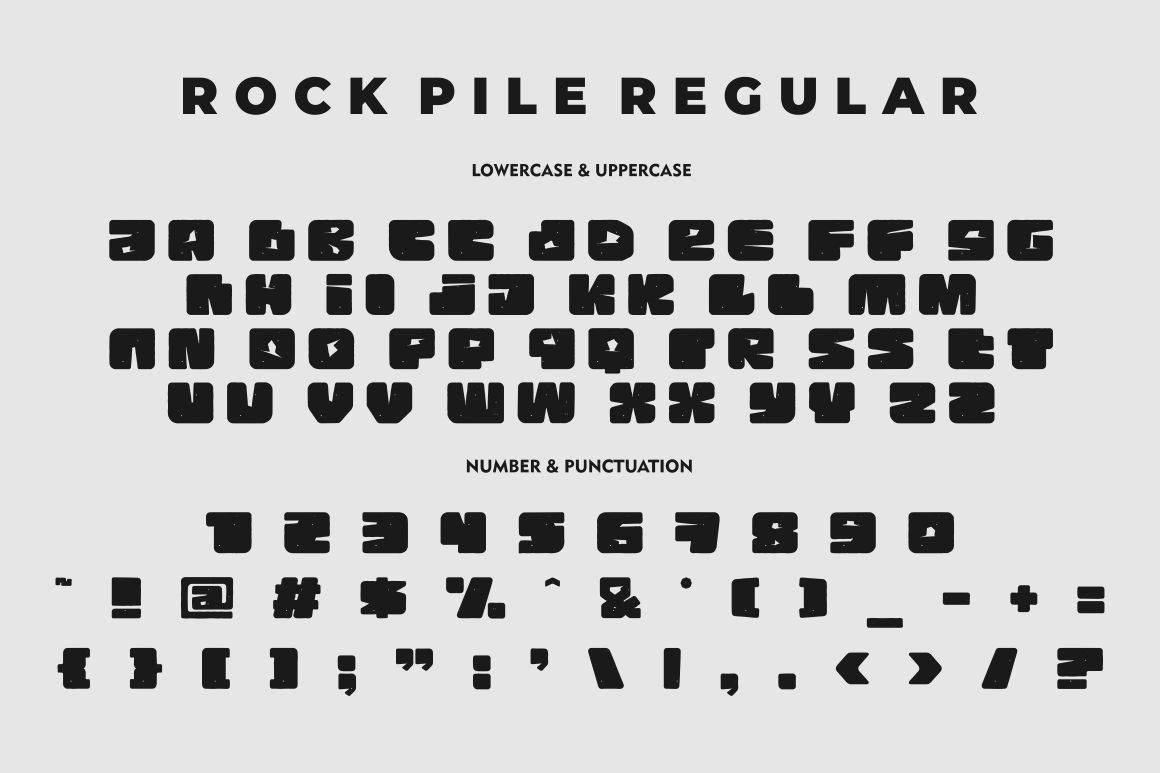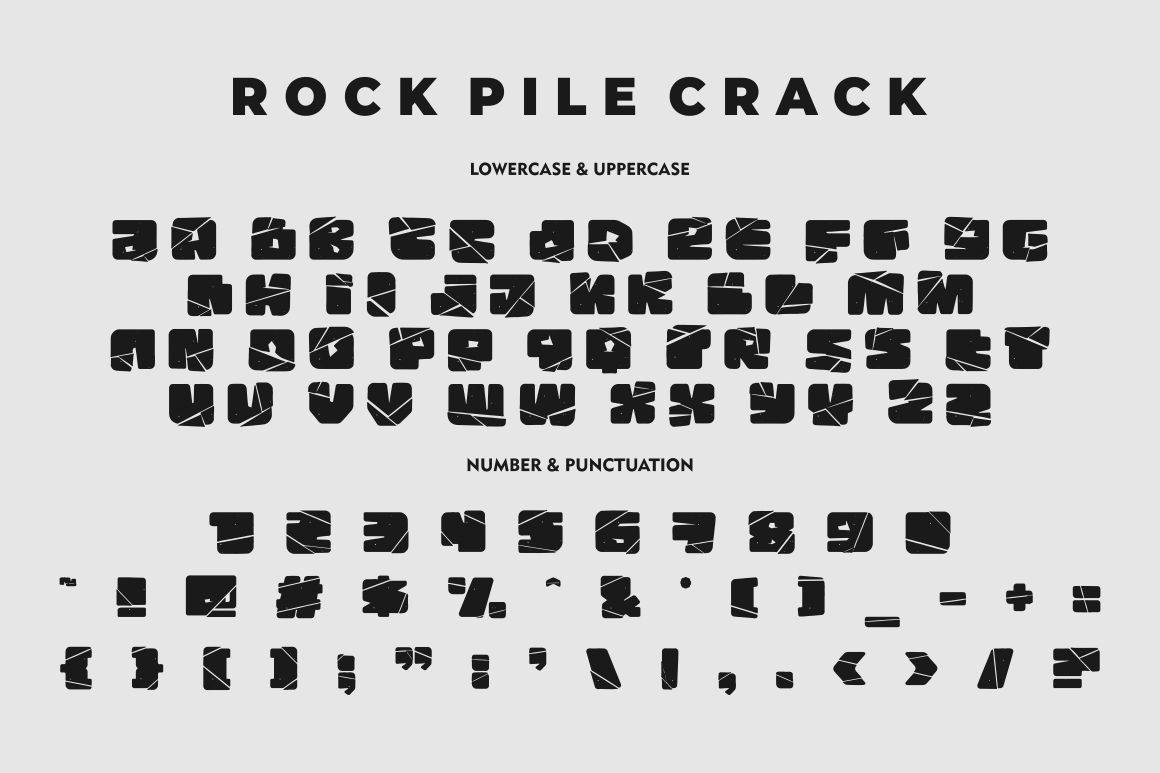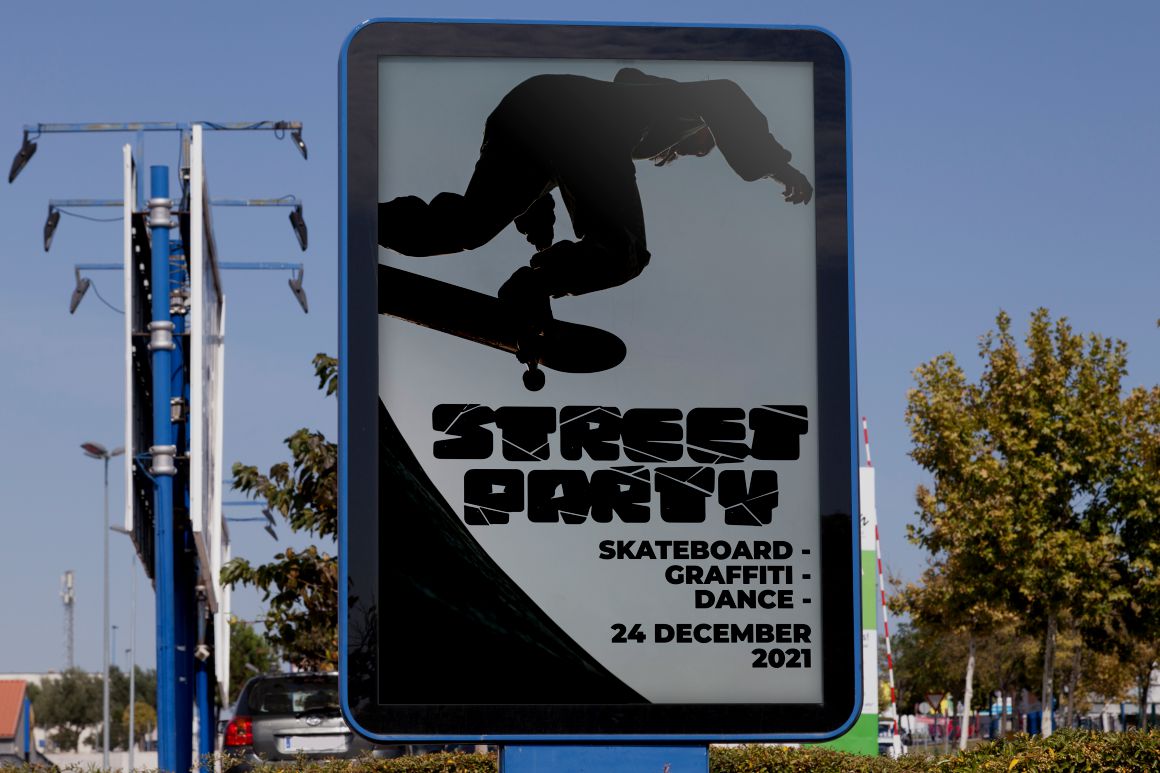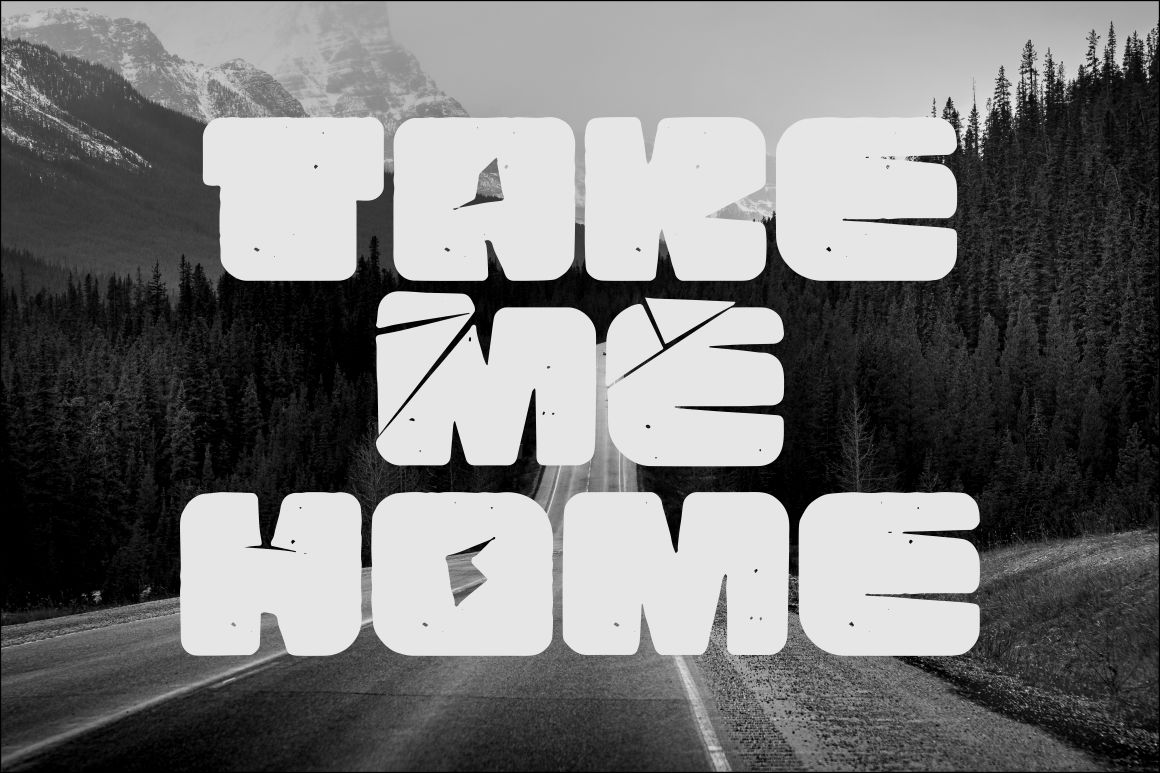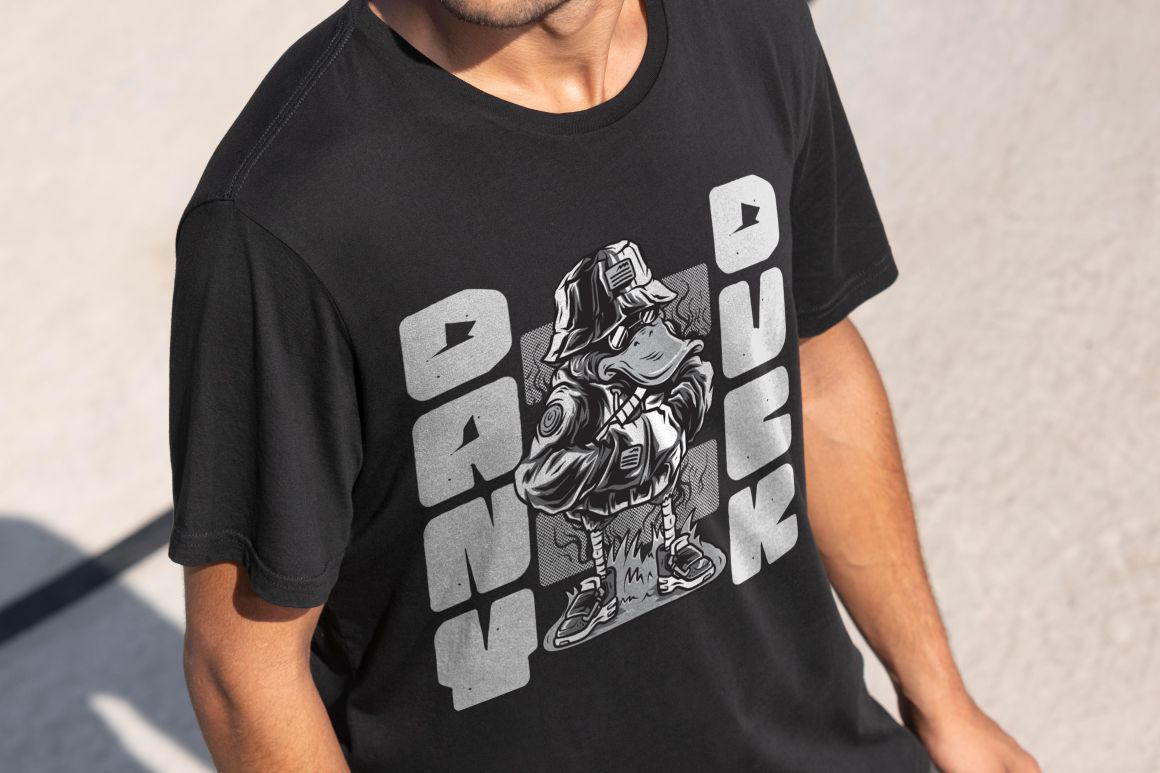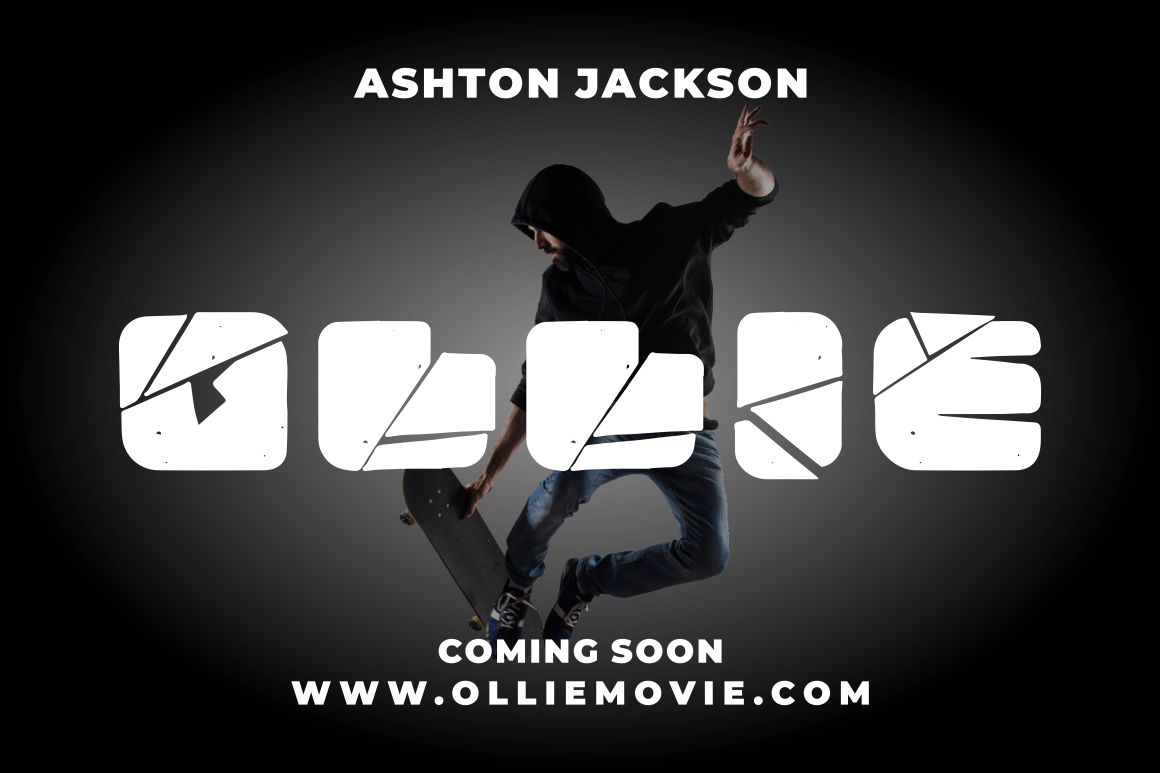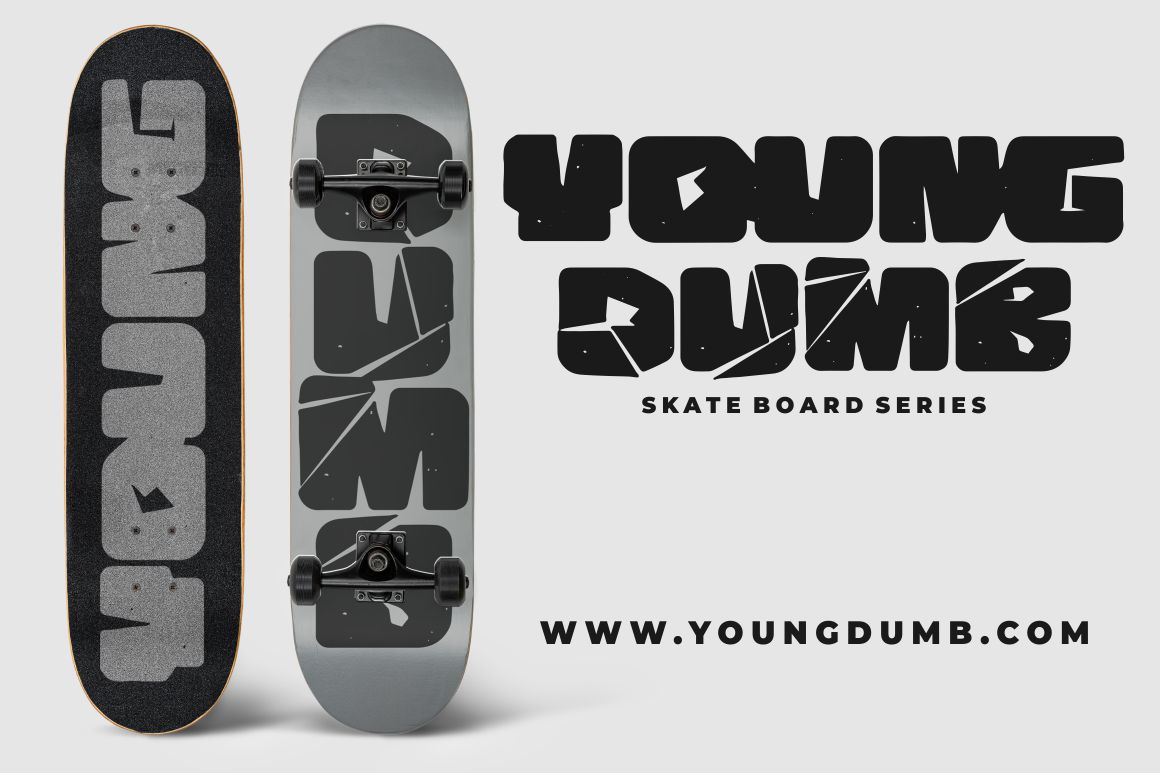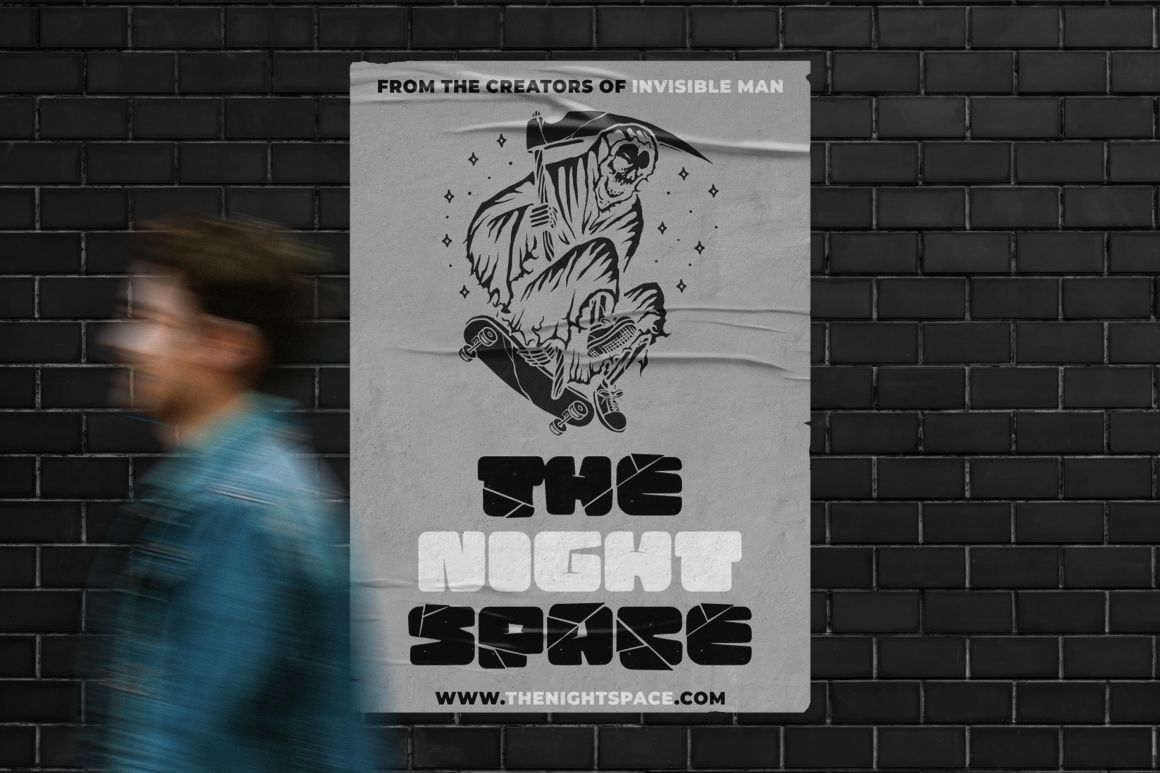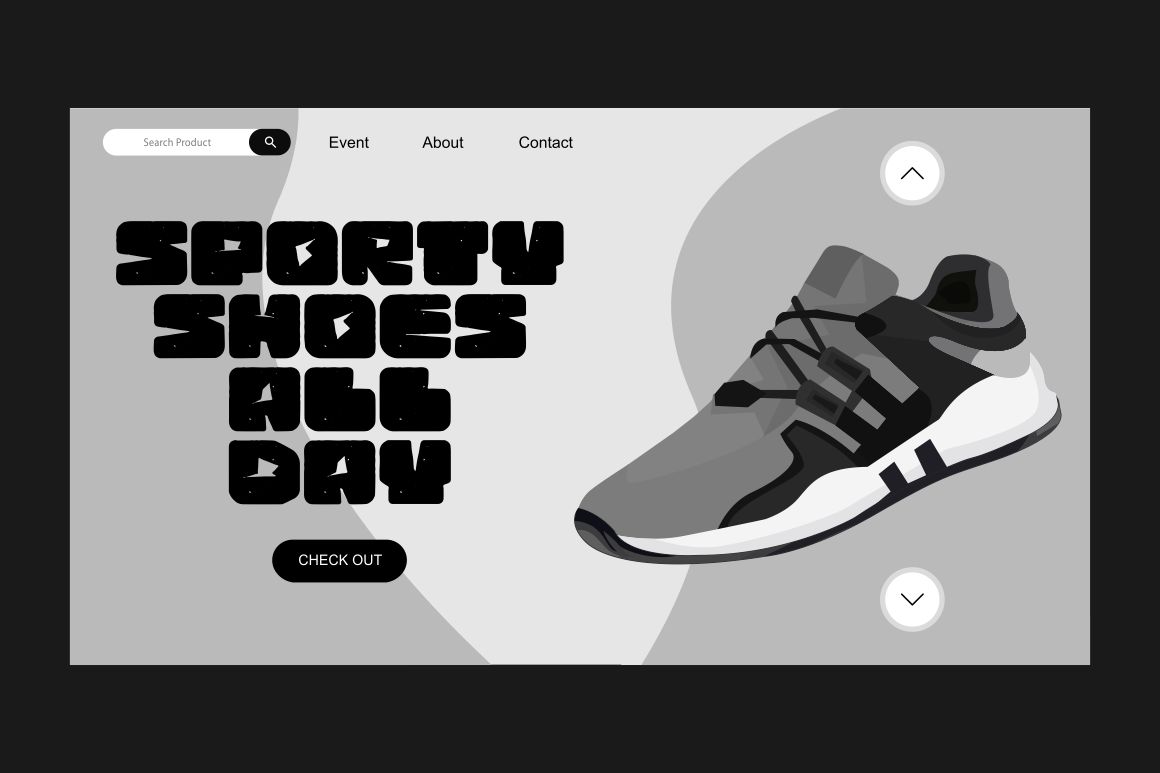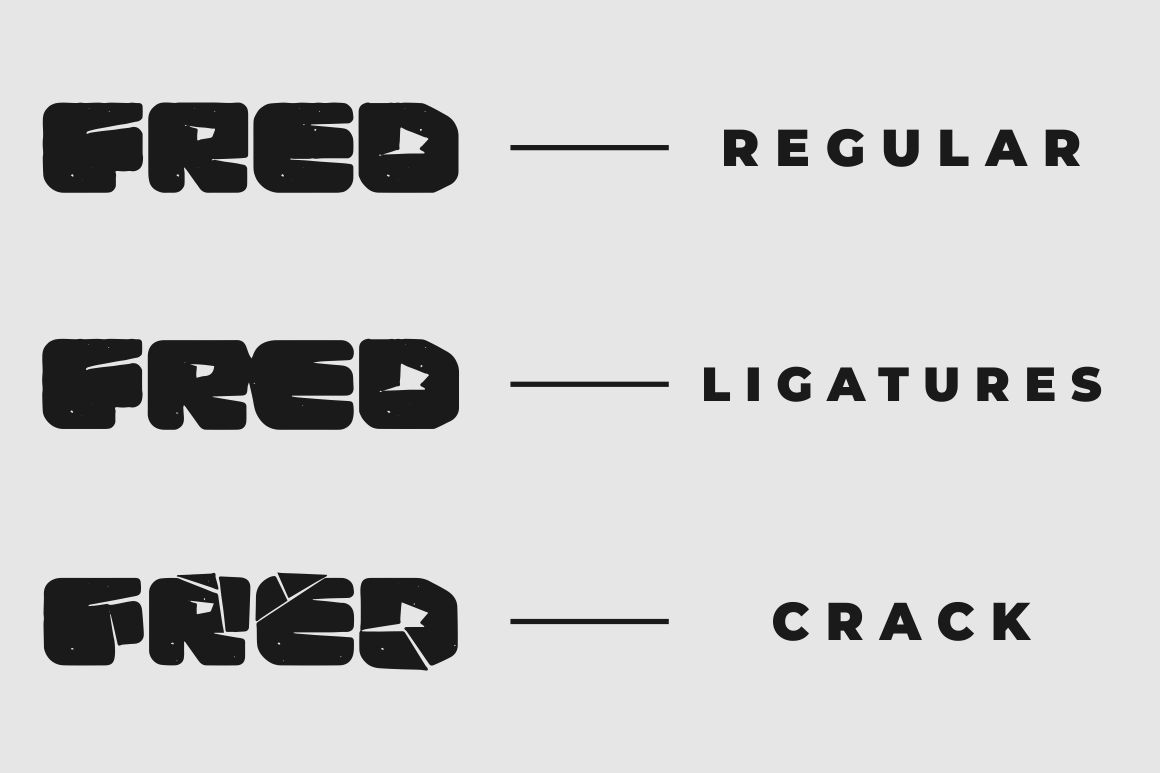
The “Rock Pile Display Font” is a bold and powerful typeface that exudes strength and masculinity. With its all-caps lettering, it commands attention and is perfect for headlines, logos, and branding.
The uppercase letters are bold and blocky, giving a sense of ruggedness and toughness. Meanwhile, the lowercase letters have a slightly softer and rounder shape, providing a nice contrast to the uppercase letters. Together, they create a balanced and harmonious look.
This font also features several ligatures, which are special characters that combine two or more letters together. These ligatures add a unique touch to your designs and make them stand out.
In addition to the standard letters, this font also includes numbers, punctuation, and symbols, giving you all the necessary elements to create compelling designs. Whether you’re creating posters, flyers, or social media graphics, this font has got you covered.
Furthermore, this font supports multiple languages, making it accessible to a global audience. You can use it to create designs in languages such as English, Spanish, French, German, and more.
Overall, the “Rock Pile Display Font” is a versatile and powerful typeface that will add impact to any design project. Its bold and rugged look will make your designs stand out, while its ligatures and multilanguage support add a unique touch. Get it now and take your designs to the next level!